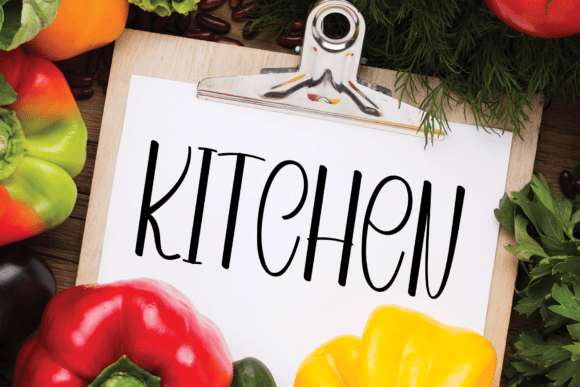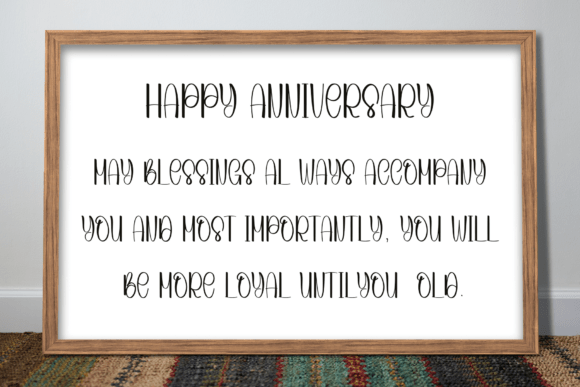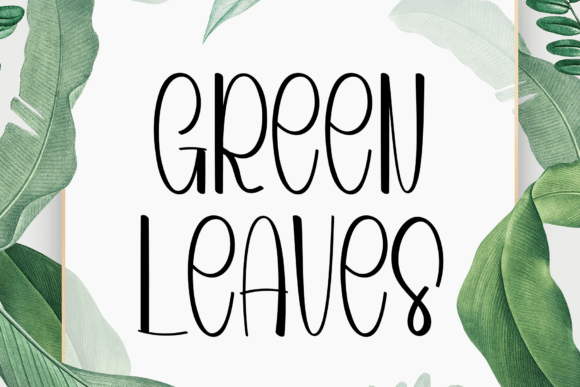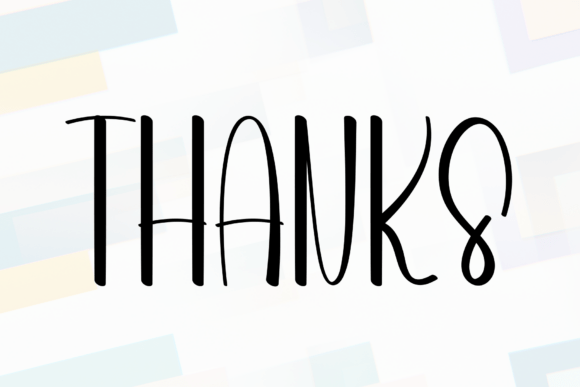
The Charm of Alphabet Font: A Designer’s Delight
I still remember the time I was working on a branding project for a cozy little café, and I was struggling to find the perfect font to capture their warm and inviting atmosphere. That’s when I stumbled upon the Alphabet font, and it was love at first sight! 💕 With its smooth strokes and organic lines, it evoked a sense of relaxed perfection that was exactly what I needed. In this article, I’ll share my experience with Alphabet font, its features, and how to make the most of it in your design projects.
• ✨ Smooth and flowing strokes that give it a natural, handwritten feel
• 💫 Perfect for creating a warm and inviting atmosphere in design projects
• 🎨 Versatile and can be used for a variety of design projects, from branding to social media graphics
While Alphabet font is a beautiful and versatile font, there are a few things to keep in mind:
• 🤔 Some characters may not work well in all languages or scripts
• ⚠️ May not be suitable for very large or very small font sizes
The Story Behind Alphabet Font
Alphabet font was designed by a talented type designer who wanted to create a font that would evoke a sense of warmth and perfection. The designer drew inspiration from traditional handwriting and lettering techniques to create a font that would feel natural and organic. The result is a beautiful and versatile font that’s perfect for a wide range of design projects.
Font Name Alphabet Font
Author KC Production
What is Alphabet font? Alphabet font is a charming handwritten font filled with a sense of heartfelt perfection.
Can I use Alphabet font for branding and logo design? Yes, Alphabet font is perfect for branding and logo design, thanks to its unique and recognizable style.
Is Alphabet font easy to read? Yes, Alphabet font is highly legible, even at small font sizes, making it perfect for a wide range of design projects.